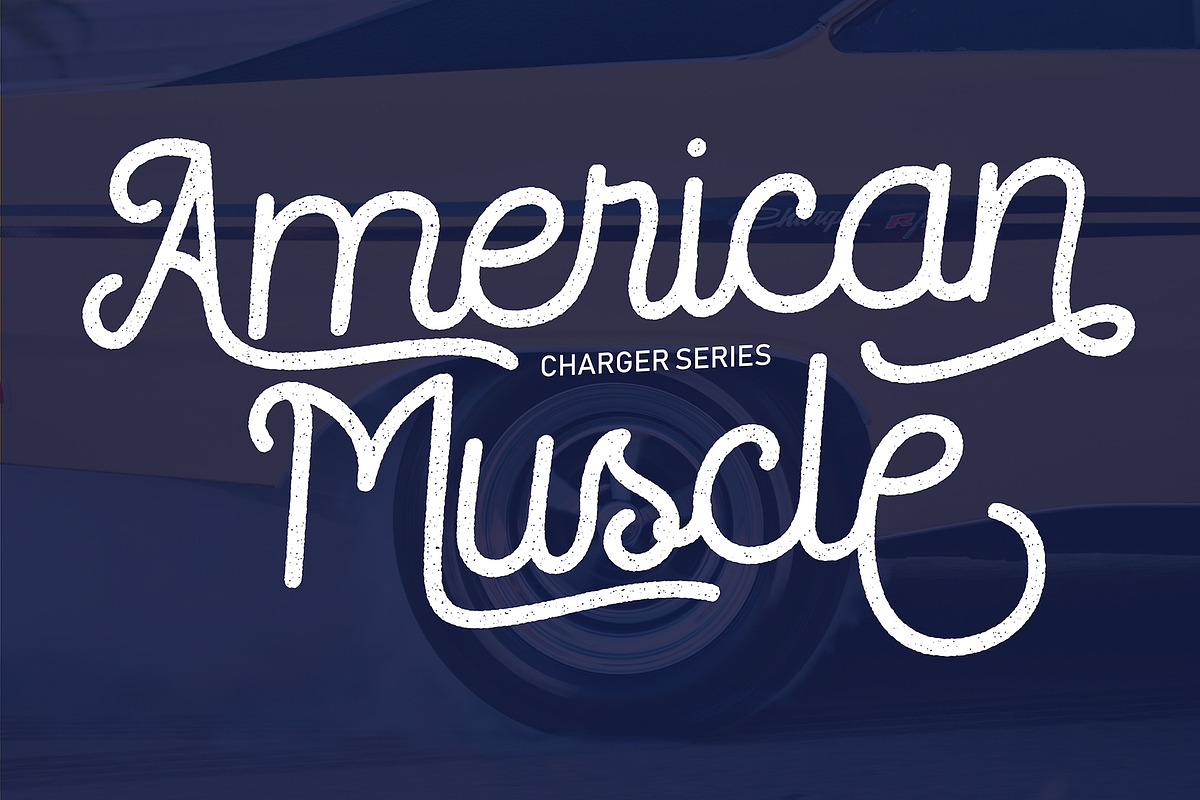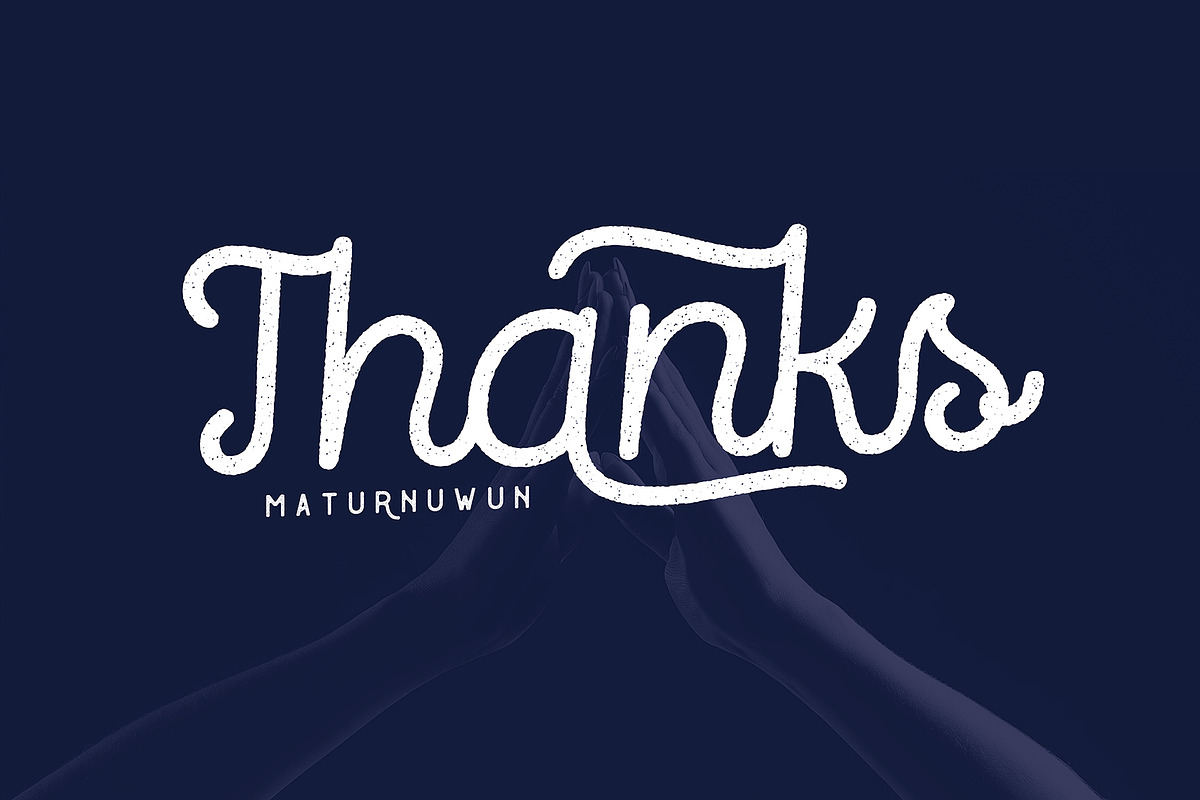
Routerline Rough
Routerline Rough is a script monoline with 4 styles, nice applied in various products. Complete with multilingual characters, ligature and alternate. It is suitable for quote, clothing design, vintage logo, label, poster, packaging design and other designs.